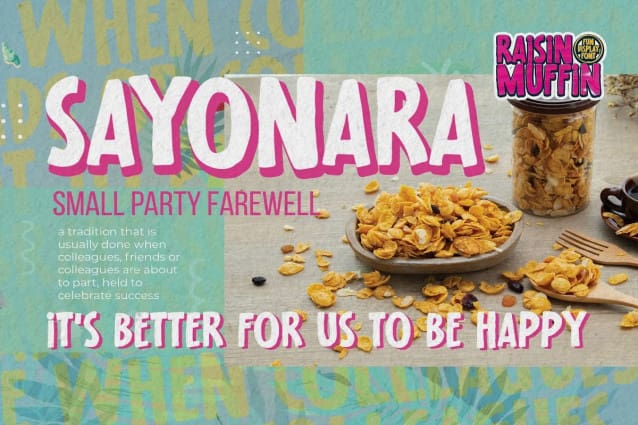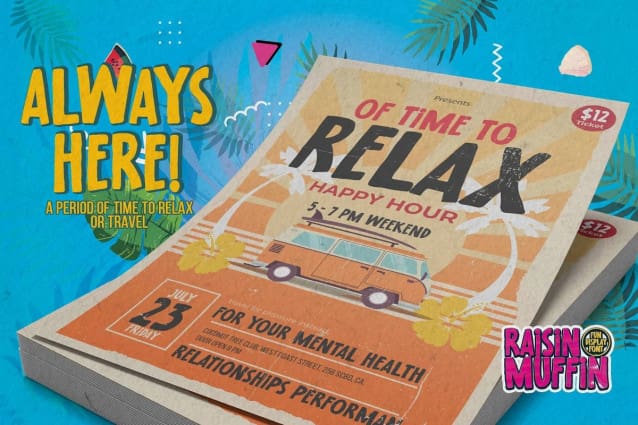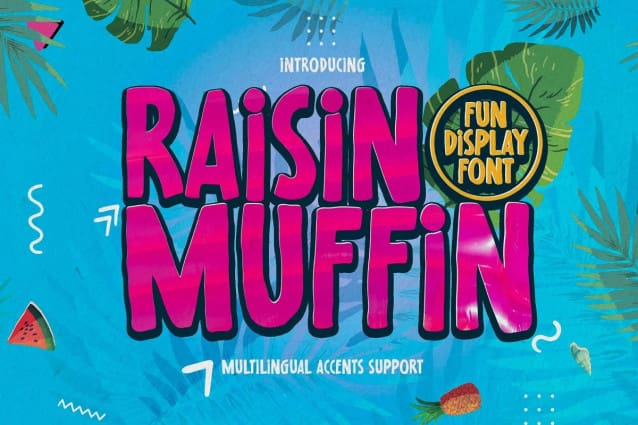
Raisin Muffin Font
Raisin Muffin Font is a Fun Display Font .This is Cute & Lovely Craft font with a natural handwritten feel. This handmade font will make your design has a beautiful natural touch for each details. It is perfect for any design project as Invitation,logo, book cover, craft or any design purposes.
Raisin Muffin is font with Creative Display Fun and challenging nuances. very suitable for the title, typography, Poster, magazines, brochures, packaging,Websites and much more for your design needs, making your designs more modern and professional.